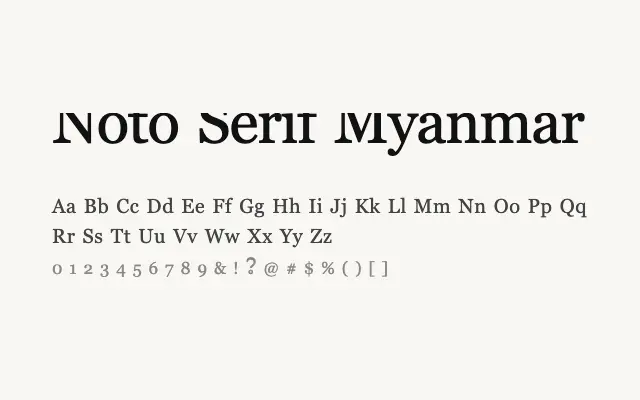
Noto Serif Myanmar
A dedicated serif for Myanmar script, offering nine weights as part of the Noto project's mission to support every written language.
Noto Serif Myanmar addresses the typographic needs of Burmese and other Myanmar script users with carefully drawn letterforms that respect the script's curvilinear character. The nine-weight range supports everything from fine editorial text to bold headline use. Its inclusion in the Noto system ensures consistent cross-script typesetting when combined with other Noto families.
Built to support the complex Myanmar script with appropriate stroke modulation and traditional letterform structure, this face follows the broader Noto design philosophy of neutral, legible serifs. Its nine weights offer considerable flexibility for both display and text use.